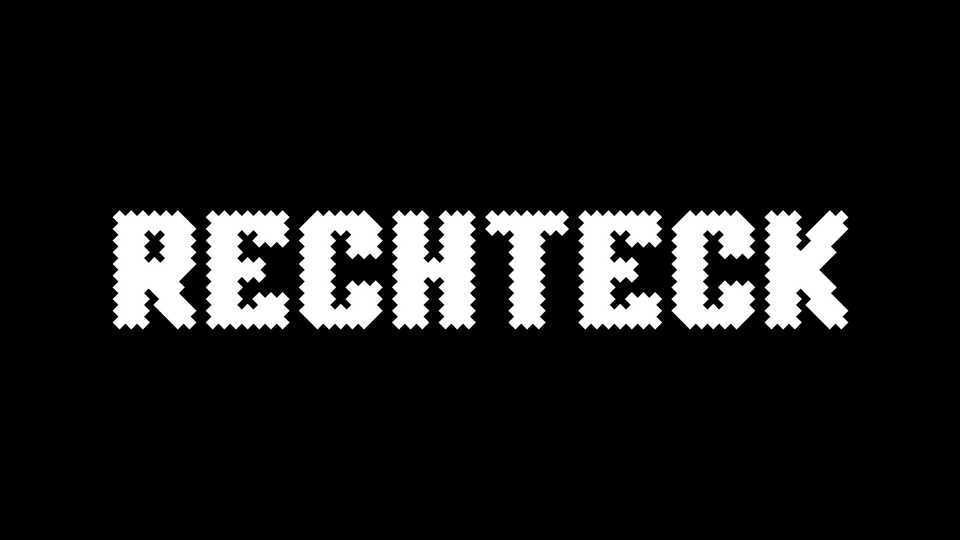
Download Rechteck font, a display typeface created using simple geometry and based on a diagonal grid. Rechteck is perfect for a poster, logo, magazine, website, t-shirt, signage, video, art, craft, etc…
Designer: OCIO Studio